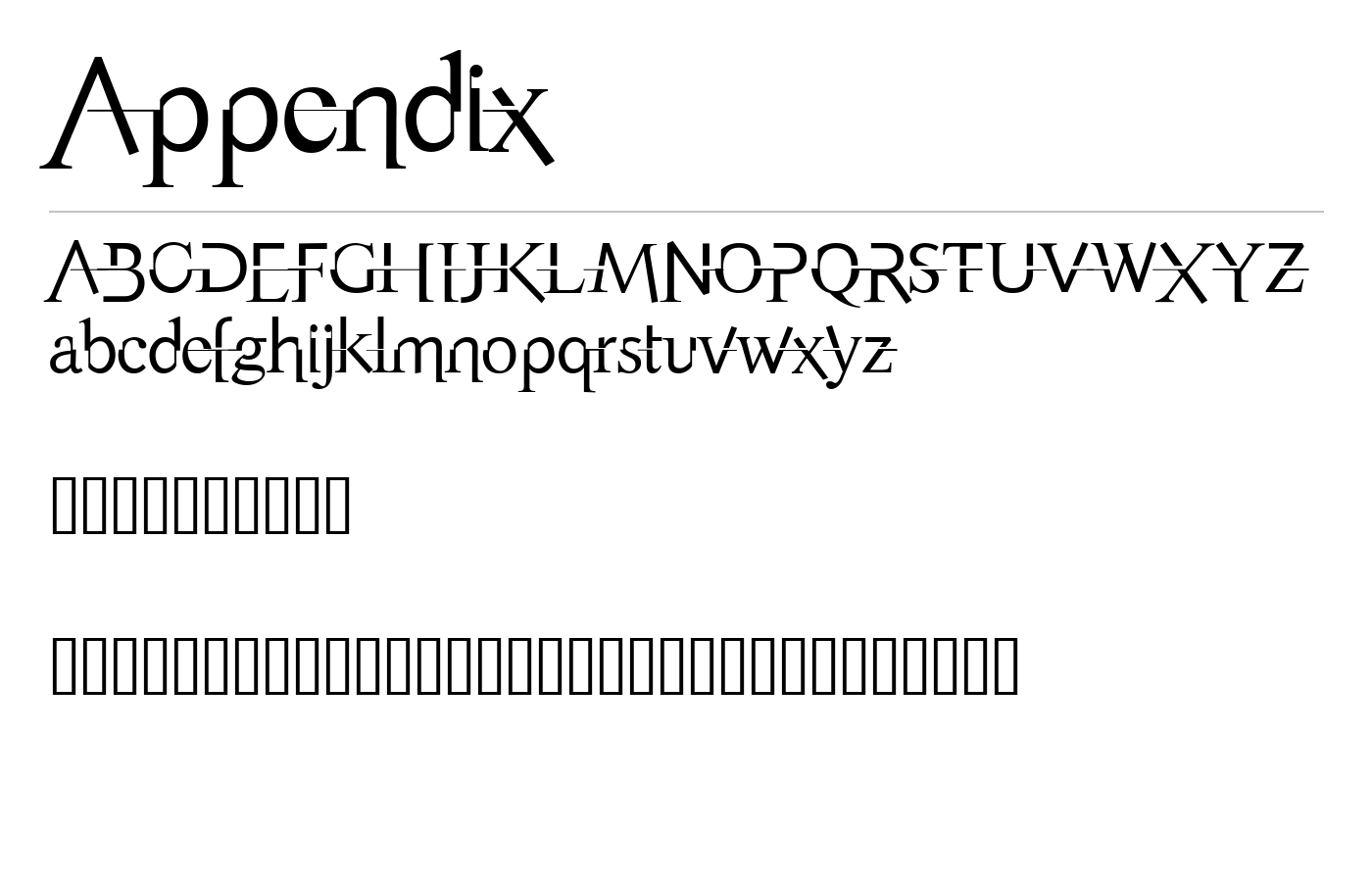
Appendix Font is a modern serif typeface characterized by its high contrast between thick and thin strokes and slender, bracketed serifs that give it an elegant yet distinctive appearance. With unique angular details and a mix of classic and contemporary letterforms, it is ideal for sophisticated editorial design, luxury branding, and striking headlines where a refined, artistic touch is desired. This font balances readability with personality, making it perfect for impactful visual storytelling and upscale projects.
Appendix Font